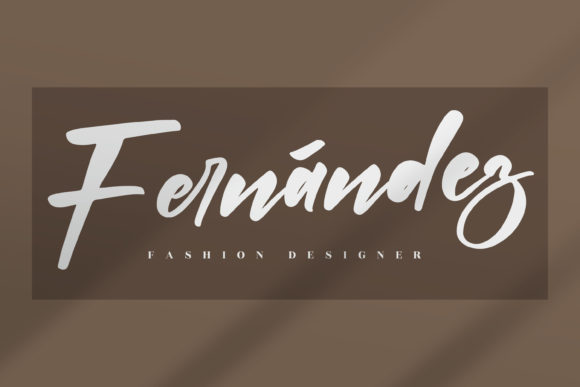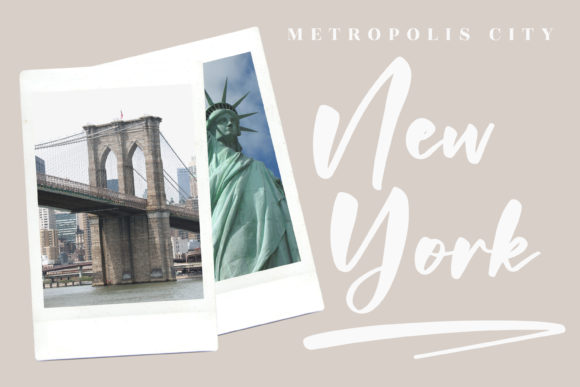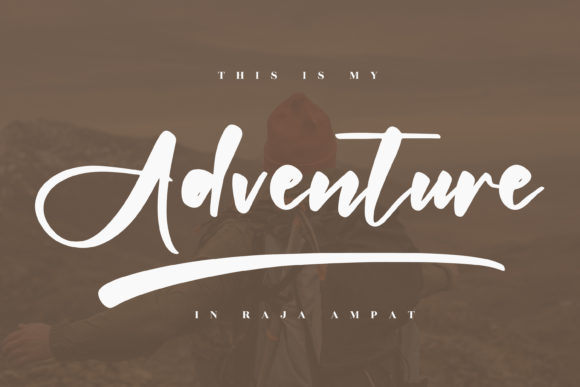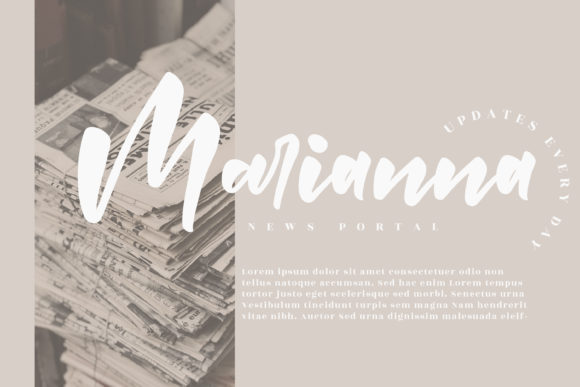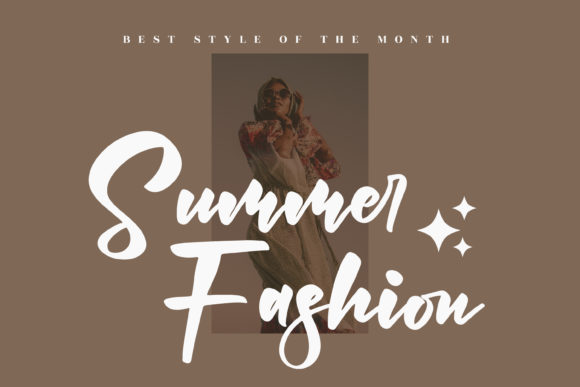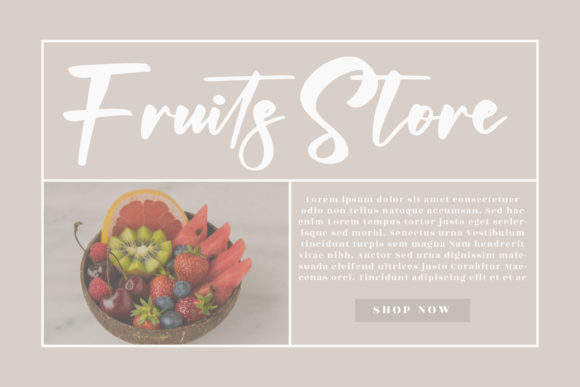
The Designer’s Delight: Uncovering the Beauty of Abigaila Font
I’ll never forget the moment I stumbled upon Abigaila Font while working on a branding project for a boutique client. I was on a tight deadline, and my design was feeling flat and uninspired. I needed a font that would elevate the entire visual identity, but my usual go-to fonts just weren’t cutting it. That’s when I discovered Abigaila, and it was love at first sight! 💕
Abigaila is a beautiful and timeless handwritten font that has become my go-to for creating eye-catching logos, branding, and quotes. Its elegant strokes and flowing curves add a touch of sophistication to any design project. In this article, I’ll share my honest review, a practical guide on how to use Abigaila, and some valuable insights into its features and alternatives.
An Honest Review of Abigaila Font
- 💫 Beautiful, elegant handwritten strokes
- 🎨 Highly versatile for various design projects, from logos to quotes
- 👍 Excellent for creating a personal or boutique brand
While Abigaila is an amazing font, there are a few things to keep in mind:
- 🤔 Some users may find the font a bit too ornate for certain projects
- ⚠️ May not be suitable for very small font sizes or body text
A Practical Guide: Using Abigaila in Your Designs
The Story Behind Abigaila Font
Abigaila Font was designed with the intention of creating a beautiful, timeless handwritten font that would inspire creativity and elegance. The designer aimed to craft a font that would be both versatile and sophisticated, perfect for a wide range of design projects.
Q: Is Abigaila Font suitable for body text or small font sizes?
A: While Abigaila is an amazing font, it may not be the best choice for body text or very small font sizes. It’s best used for headlines, titles, or creative projects where its elegant strokes can shine.